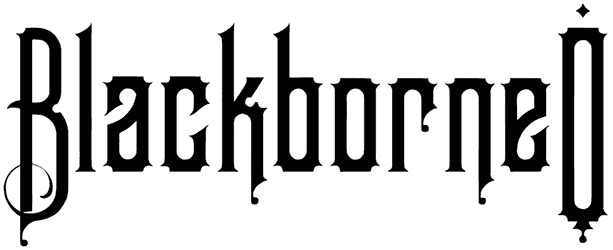
Blackborneo Font
If you are in the mood for sharing a sense of classic, vintage, dynamic, or eerie through your artwork, a gothic font such as Blackborneo would be really helpful. In addition to all its numerous benefits, this masterpiece can be your faithful assistant in designing eye-grabbing graphic content like historical movie posters, strategic video game brochures, wood engravings, or magazines.